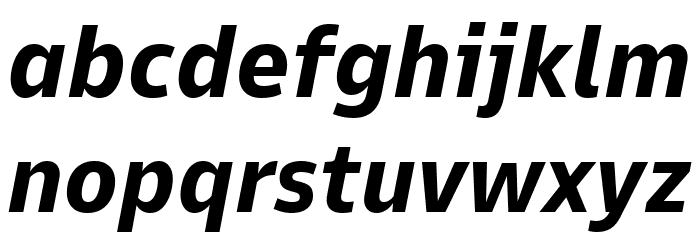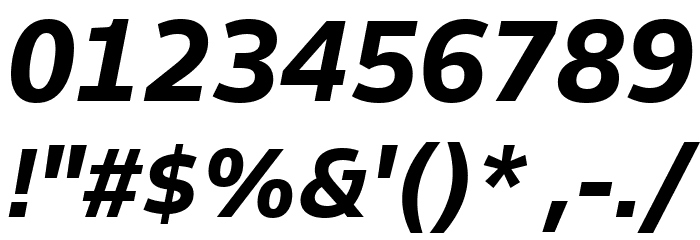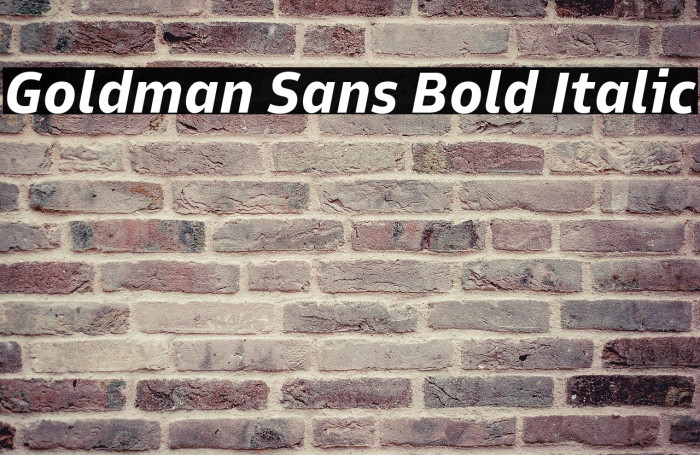
Goldman Sans Bold Italic Font
This font exhibits a modern and clean sans-serif style with a bold and italicized appearance. The characters are well-defined with a consistent stroke width, providing a strong and assertive look. The italic slant adds a dynamic and forward-moving feel, making it suitable for contemporary design projects. The uppercase and lowercase letters are balanced, and the numerals are clear and easily readable. Special characters are included, maintaining the font's cohesive style. The overall design is versatile, making it ideal for both digital and print media.
- Proposed Projects: Ideal for branding, advertising, headlines, and digital media projects.
- Use Case: Headlines, Logos, Digital Media